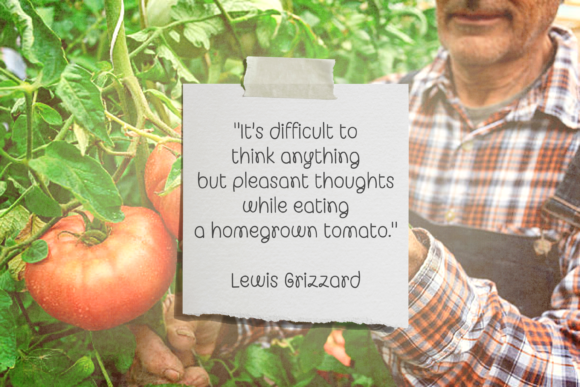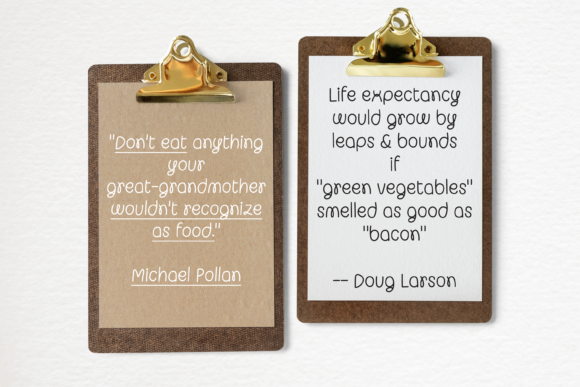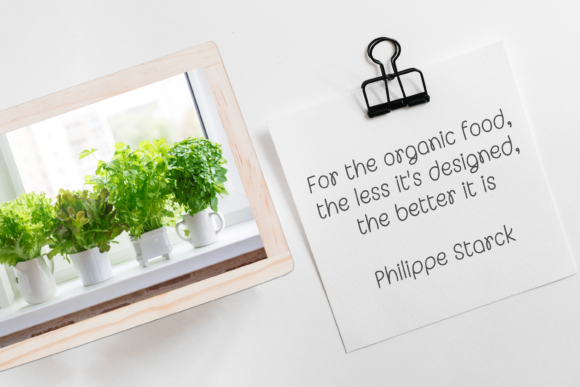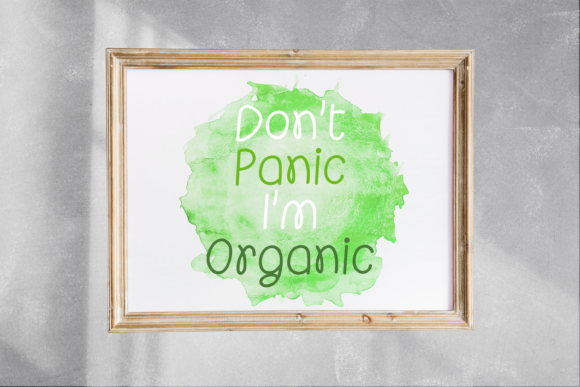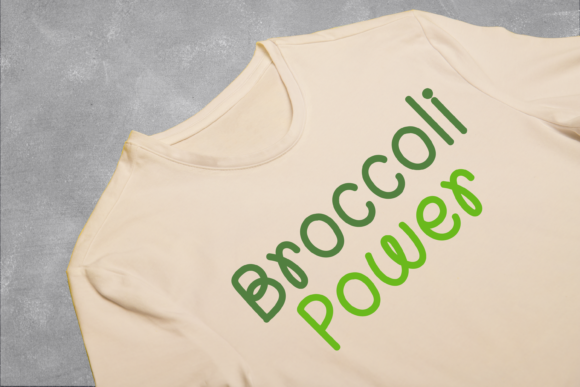
Introduction to Organic Veggies Font
Organic Veggies is a cute and quirky handwritten font.
It will add an incredibly joyful touch to your designs Add this beautiful handwritten font to each of your creative ideas and notice how it makes them stand out.
Organic Veggies Font offers exceptional quality and versatility, making it a valuable addition to your design toolkit. Whether you’re creating for personal projects or commercial use, Organic Veggies Font delivers professional results.